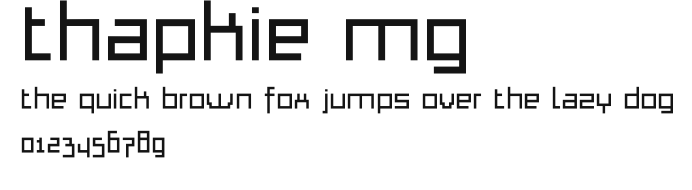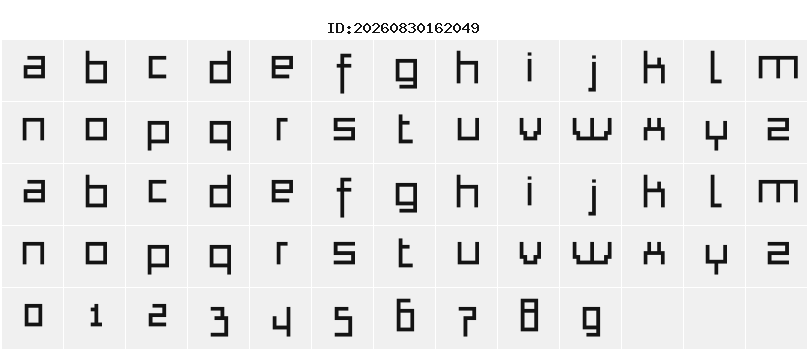
About Thapkie MG.ttf
Thapkie MG.ttf is a modern, elegant sans-serif font designed for ultimate readability and visual harmony. Perfect for branding, headlines, web design, and print materials.